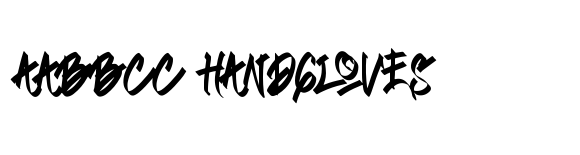
Thishub Graffiti
by Sipanji21
The Thishub Graffiti Font Family was designed by Sipanji and published by Sipanji21. Thishub Graffiti contains 1 styles.
Thishub Graffiti is a display font with a monoline graffiti style, there is some swash for your awesome design. It will elevate a wide range of design projects to the highest level, be it branding, headings, wedding designs, invitations, signatures, logos, labels, and much more!